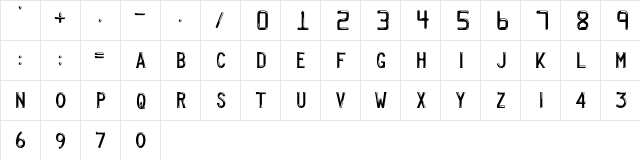
Firstusa Regular
Design Context for Firstusa Typeface
Firstusa takes a measured approach to typography — its balanced proportions and neutral character make it a reliable workhorse for both digital and print work.